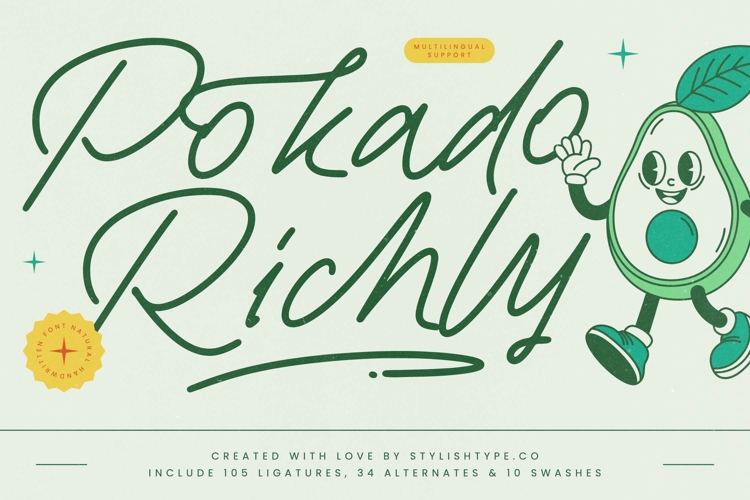
Pokado Richly - Natural Handwritten Font
Pokado Richly - Natural Handwritten Font, the premium monoline script designed to infuse your projects with a genuine, natural handwriting appeal. This dynamic typeface captures the essence of a smooth, swiftly executed signature, providing an energetic yet legible flow that immediately draws the eye. Its consistent weight and uninterrupted script connections make it an exceptional choice for branding that demands both playfulness and sophisticated execution, positioning your product with high-impact charm.